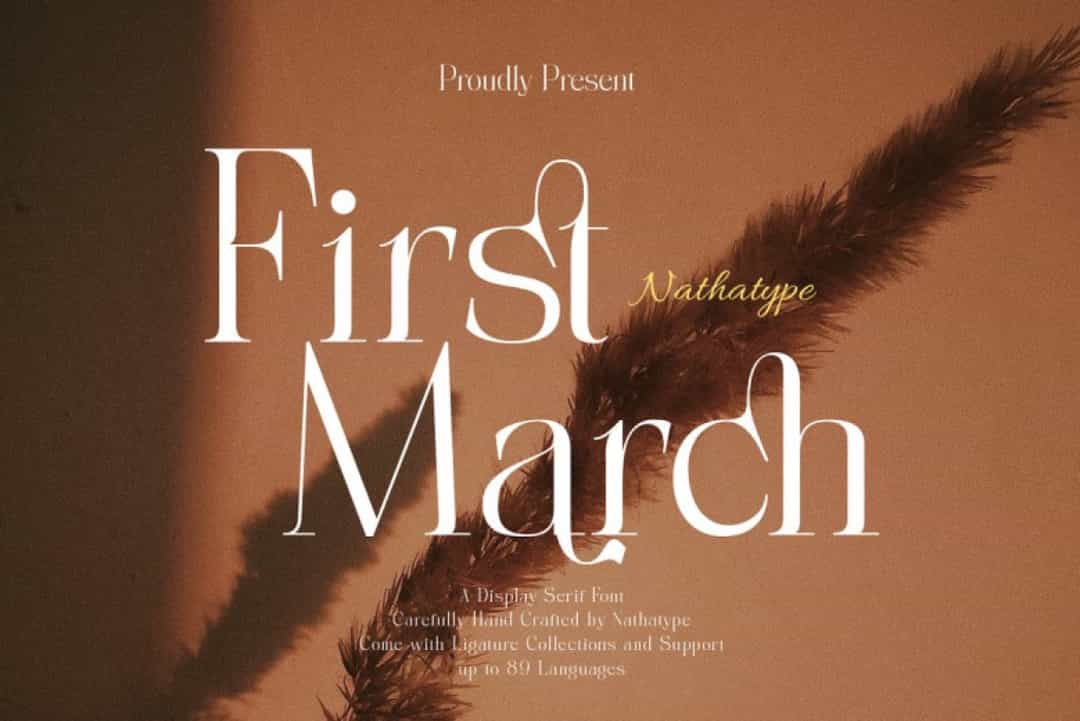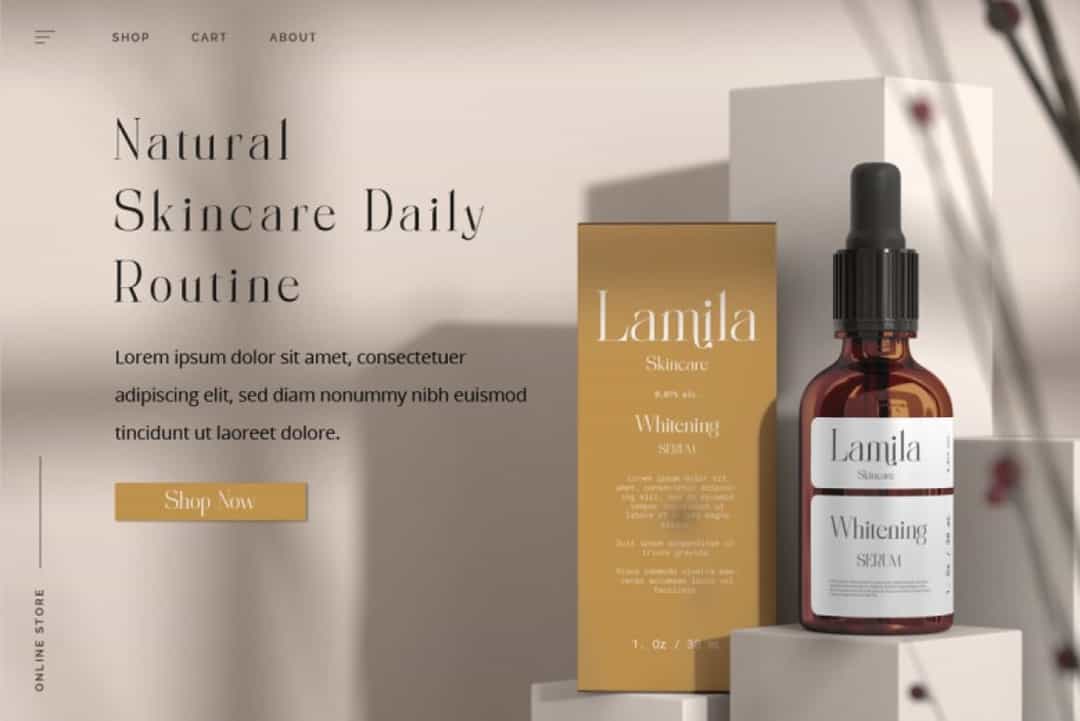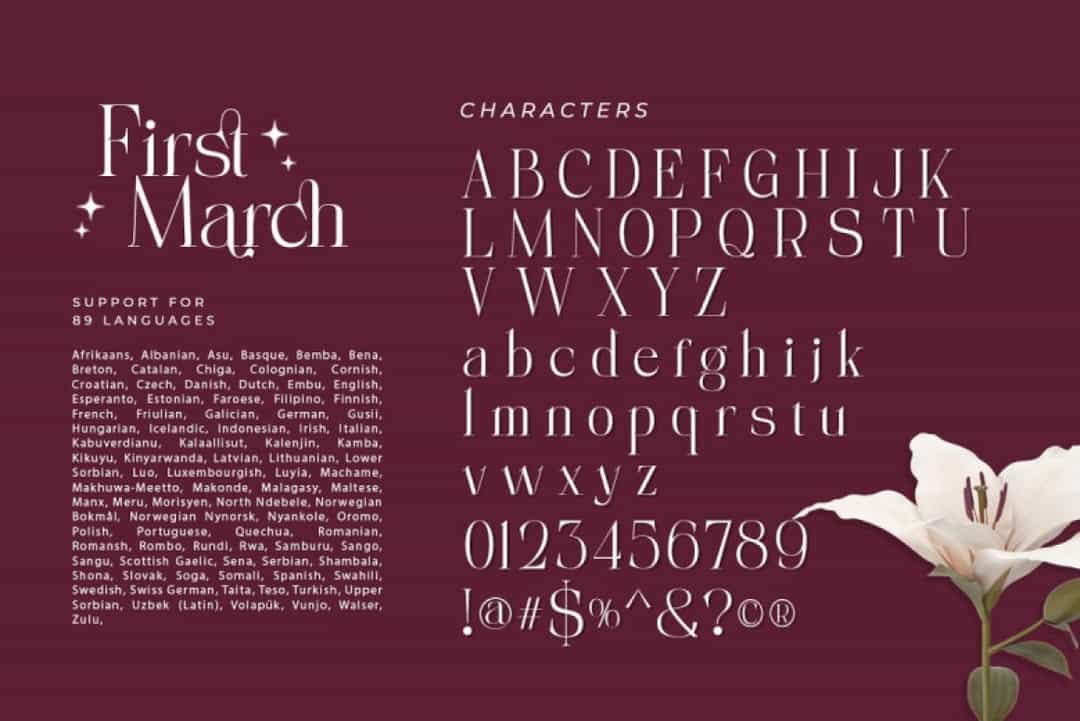
Discover First March Font, part of the Serif collection—a versatile and unique font perfect for adding a personal touch to your projects. Download it for free and enjoy crafting designs with style, from invitations to social media posts. This font is available exclusively for personal use, giving you the freedom to create without limits. Unlock your creativity with First March Font today!
First Marchis is a beautiful visual serif typeface created with elegance and modern flair in mind. Featuring classic serif features paired with contemporary design, First Marchis provides an eye-catching contrast for artistic projects of all kinds. Graceful letterforms boast sleek lines and proportions balanced to provide a touch of class and elegance for the typeface; its combination of classical serif features with contemporary designs adds sophistication while still remaining familiar and traditional in appearance.